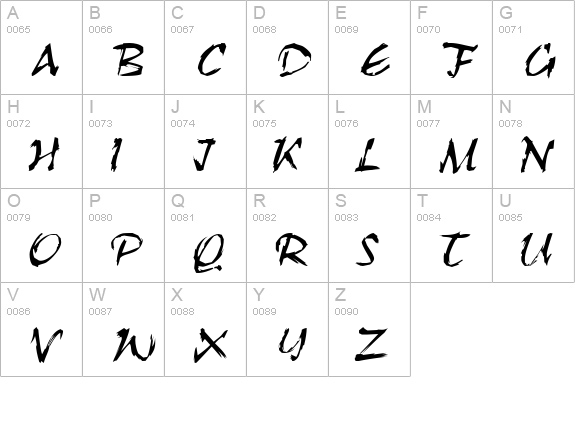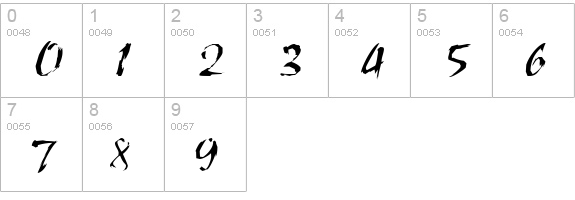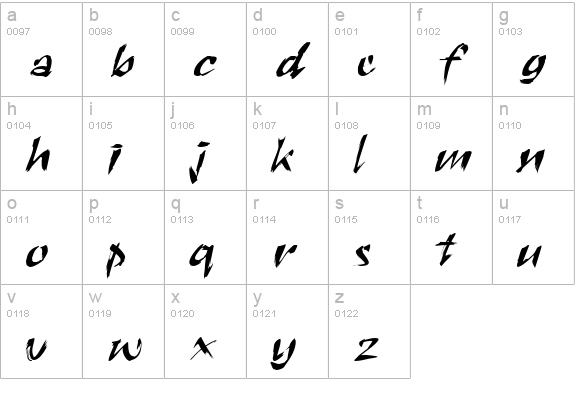
RoughBrush Font Details
Introducing RoughBrush font, a beautifully designed typeface that exudes a raw and artistic charm. With its textured strokes and imperfect edges, RoughBrush adds a touch of handcrafted authenticity to any project. Whether you're looking to give your designs a bold and edgy look or a casual and laid-back feel, RoughBrush is the perfect choice. This versatile font is ideal for a wide range of design projects, from logos and branding to posters, packaging, and more. Its unique style will make your creations stand out and capture the attention of your audience. Best of all, RoughBrush font is completely free to download at FontsMarket.com. So why wait? Add this eye-catching typeface to your collection today and let your creativity flow with RoughBrush font.